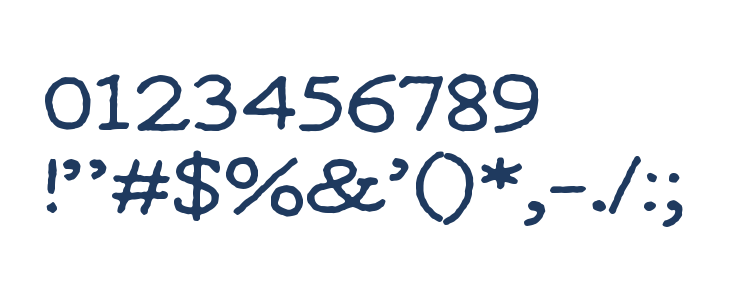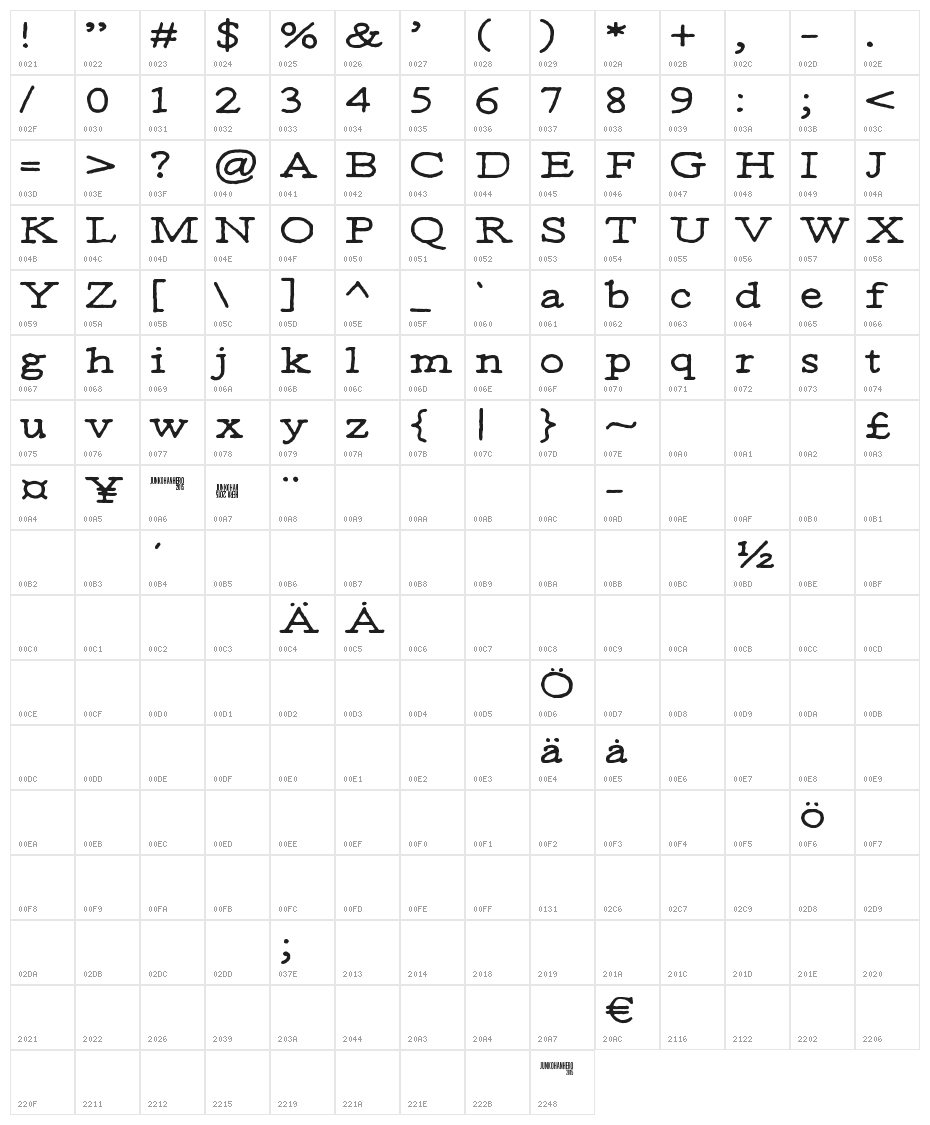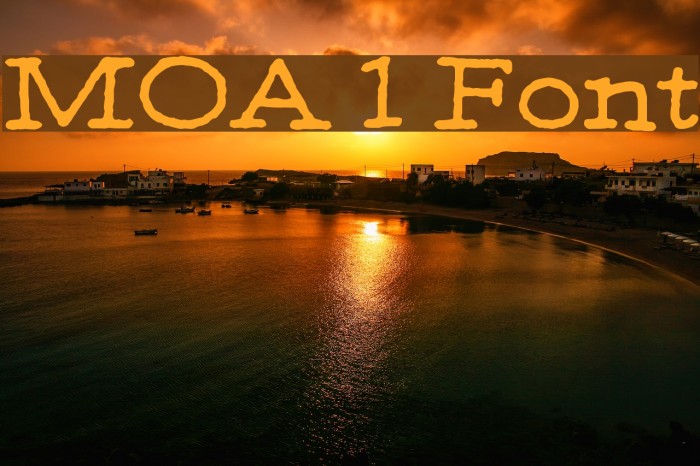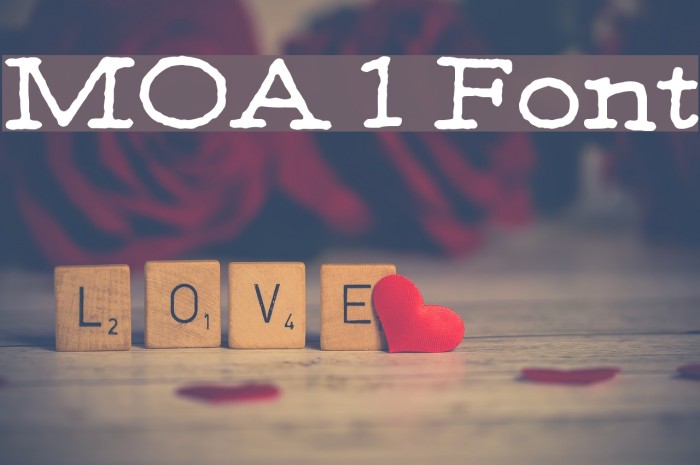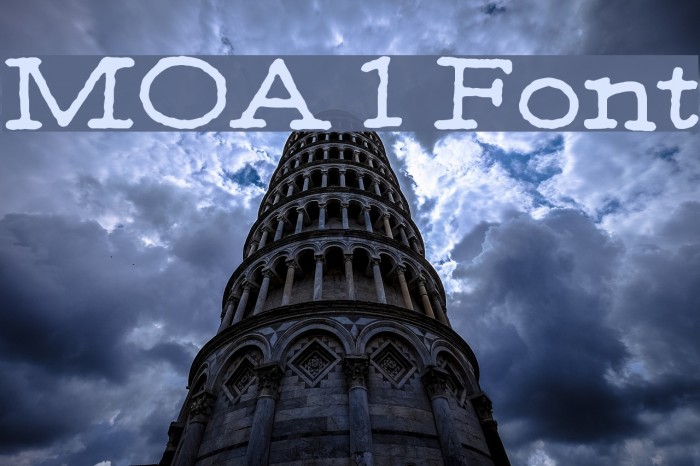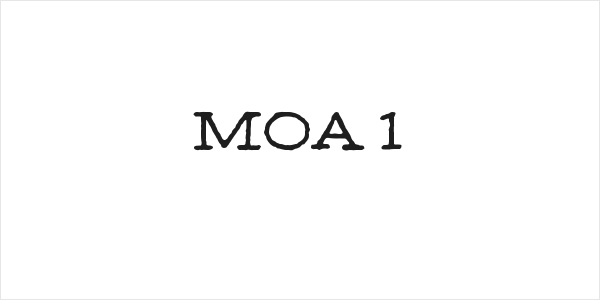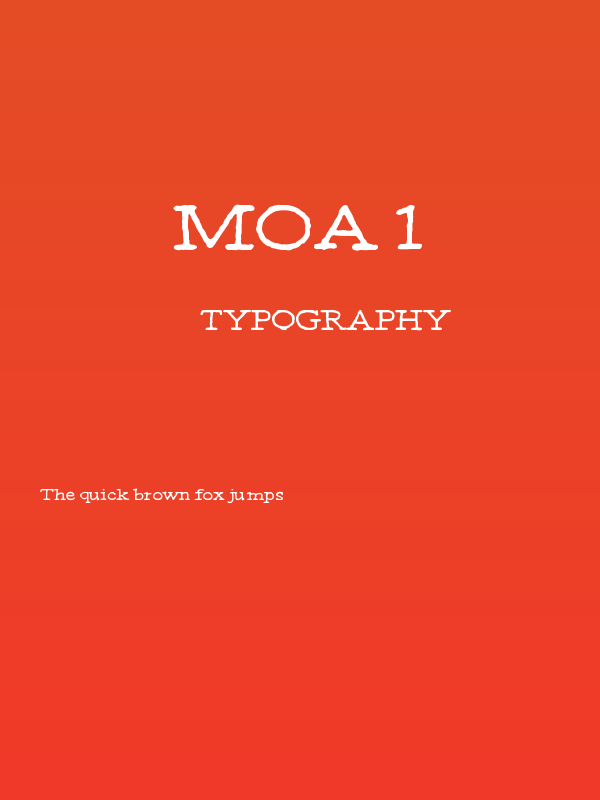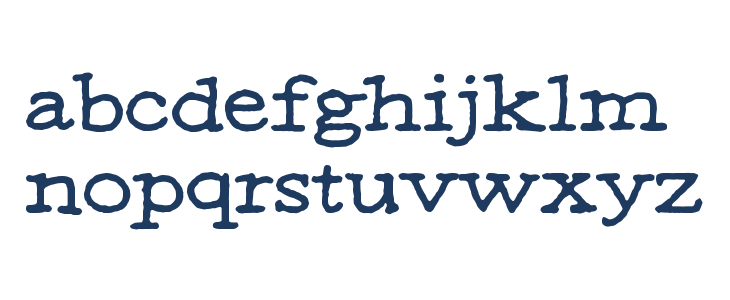
MOA 1 Font
MOA 1 Description
This font features a rugged, hand-drawn aesthetic with a distinctly vintage feel. The characters are slightly irregular, giving it a unique, organic appearance. The uppercase letters are bold and prominent, while the lowercase letters maintain a consistent style with a touch of whimsy. Numbers and special characters follow the same design principles, ensuring a cohesive look across all elements. The font's rough edges and uneven strokes contribute to its handcrafted charm, making it ideal for projects that require a personal touch. Its versatility allows it to be used in various design contexts, from retro-themed posters to artisanal product packaging.
| Proposed Projects | Ideal for retro-themed posters, artisanal product packaging, and creative branding projects. |